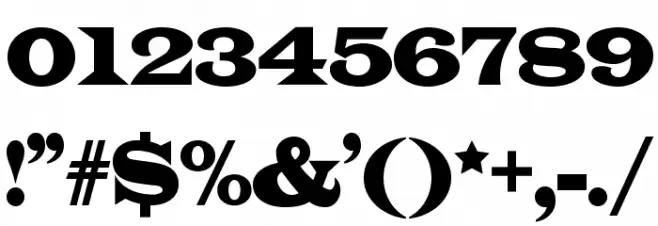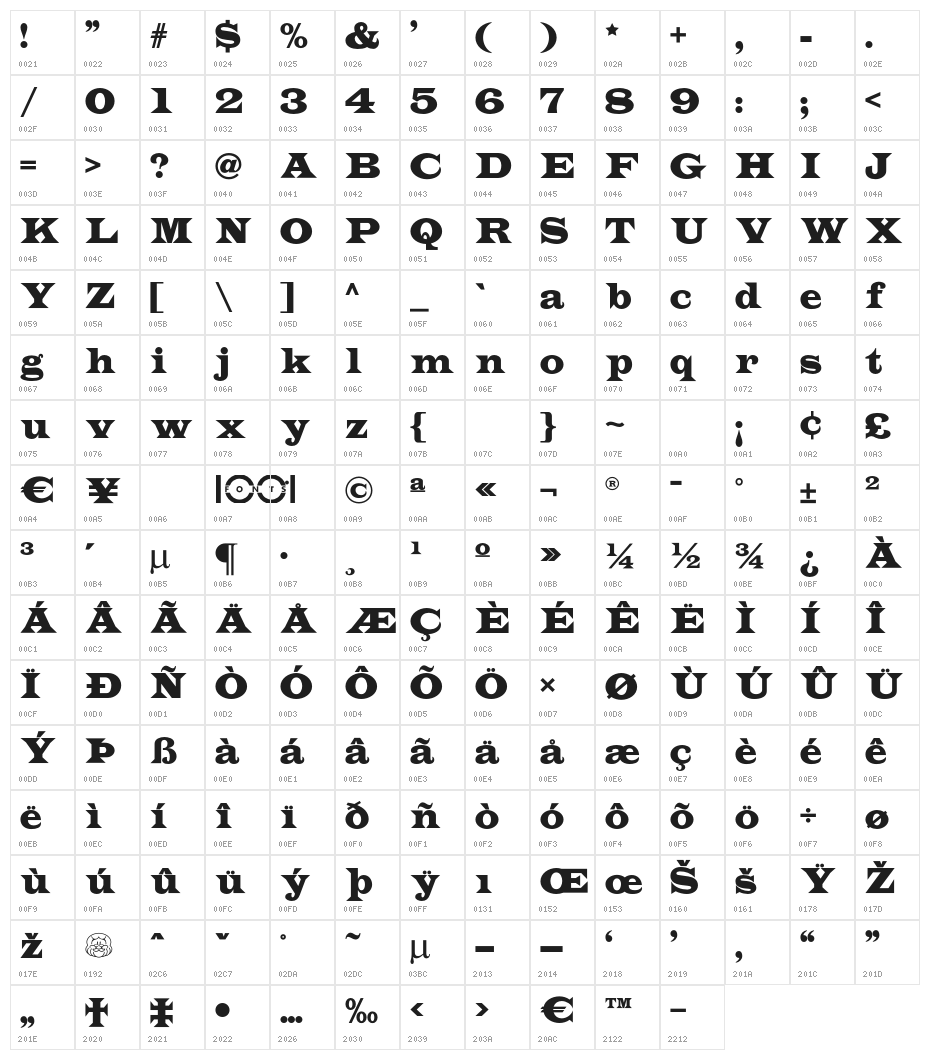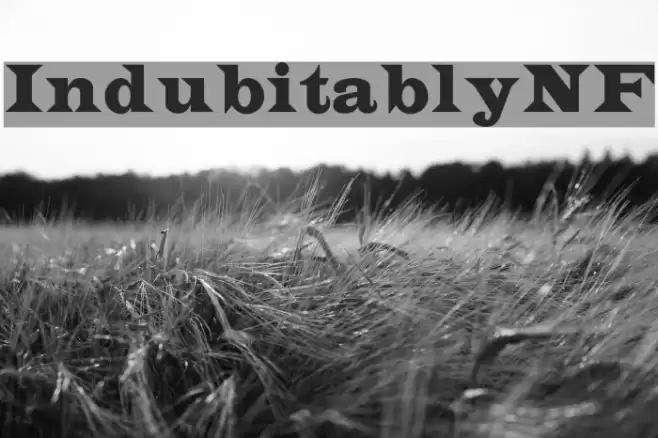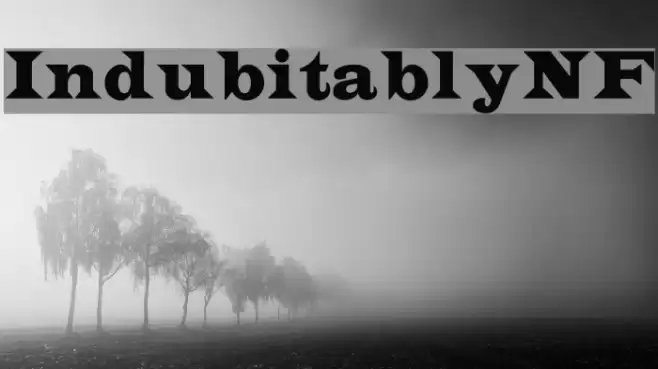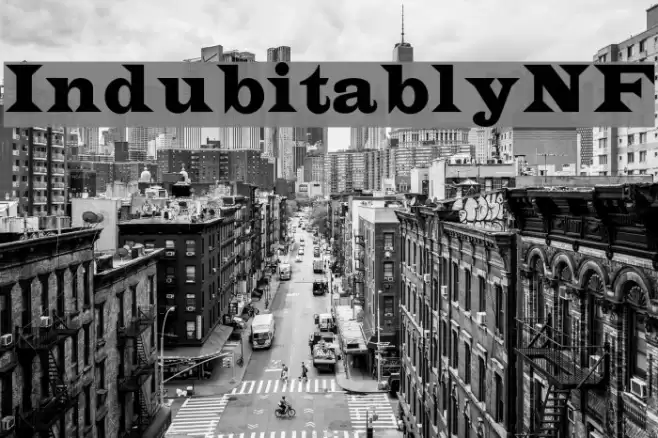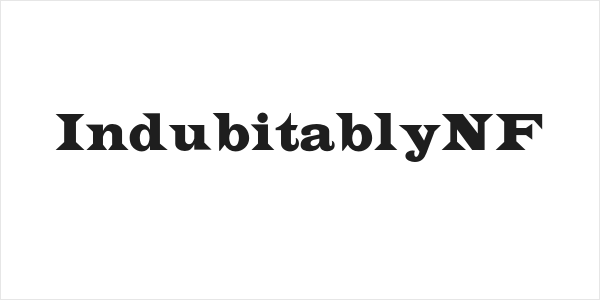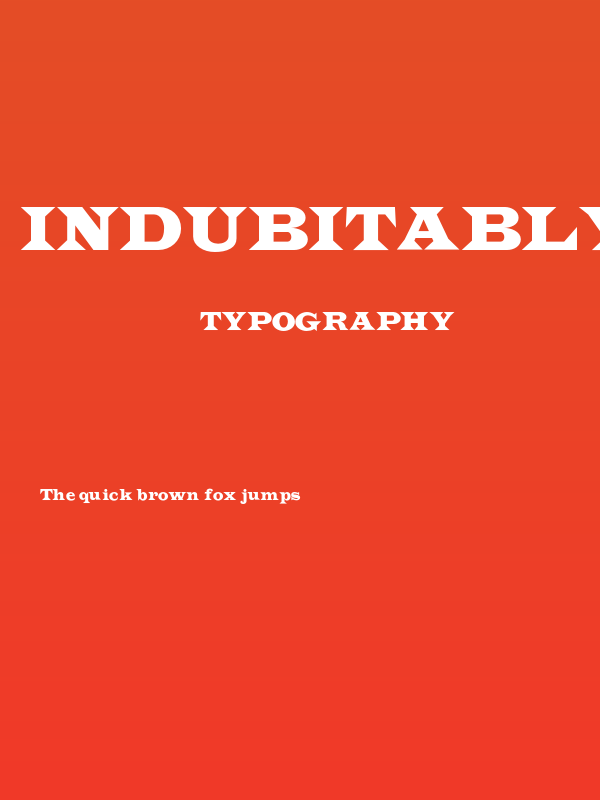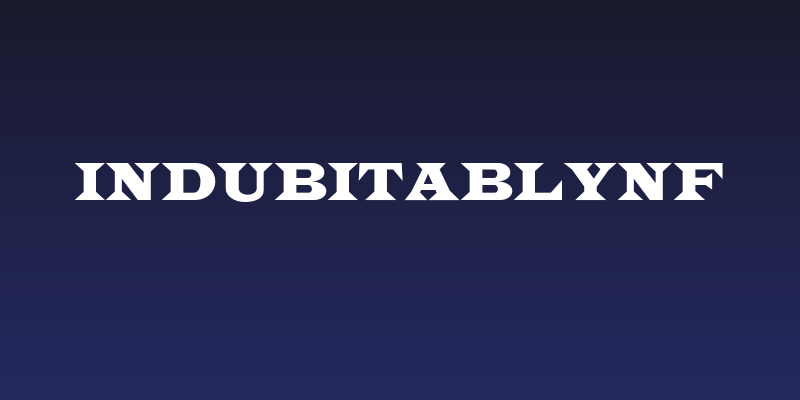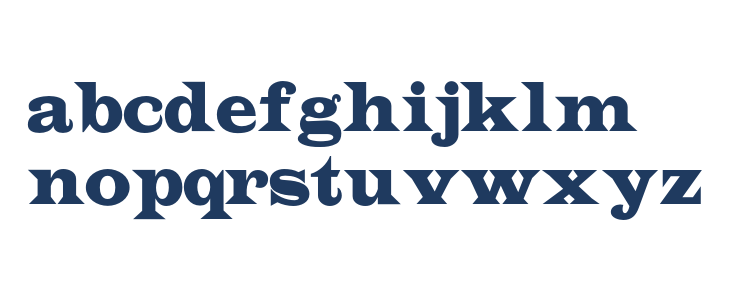
IndubitablyNF Font
IndubitablyNF Description
This font exhibits a bold and striking presence with its thick, slab serif design. The uppercase letters are robust and commanding, while the lowercase letters maintain a consistent weight, offering a harmonious balance. The numerals are equally bold, ensuring clarity and emphasis. Special characters are designed with the same boldness, making them stand out effectively. The overall style is reminiscent of vintage typefaces, yet it maintains a modern appeal through its clean lines and structured form.
Overall StyleVintage
Proposed ProjectsIdeal for headlines, posters, branding, and any project requiring a strong, impactful typeface.